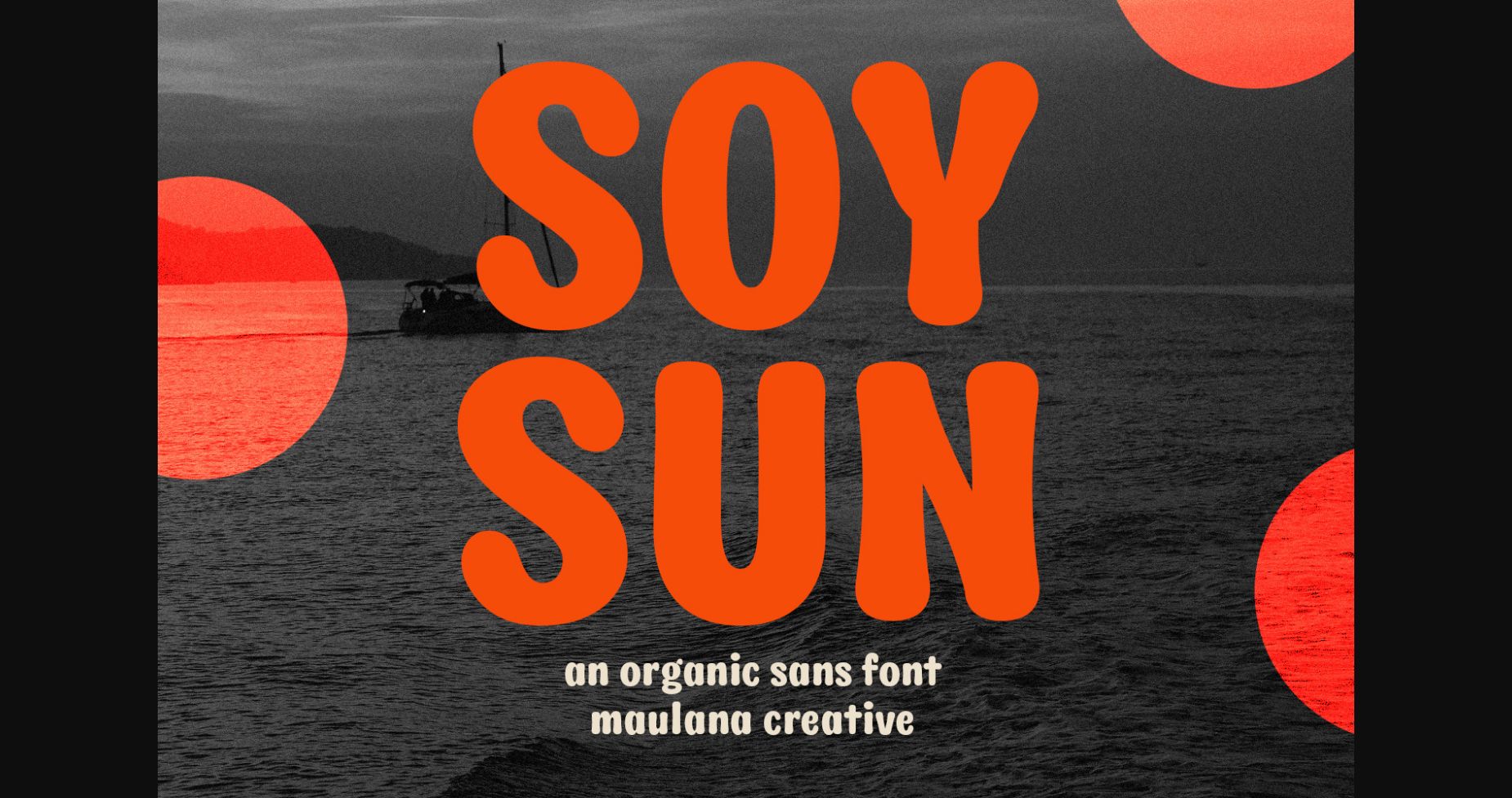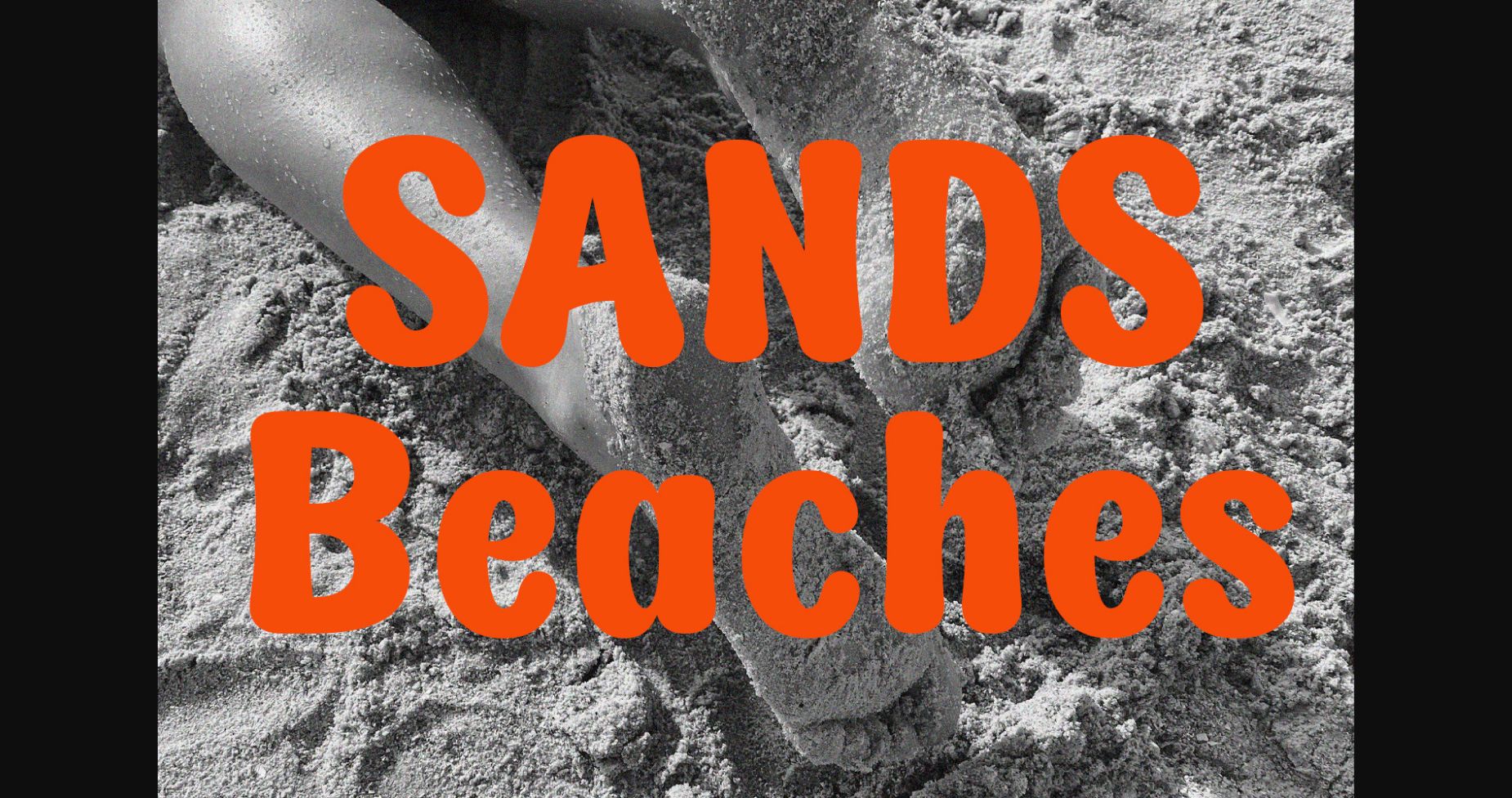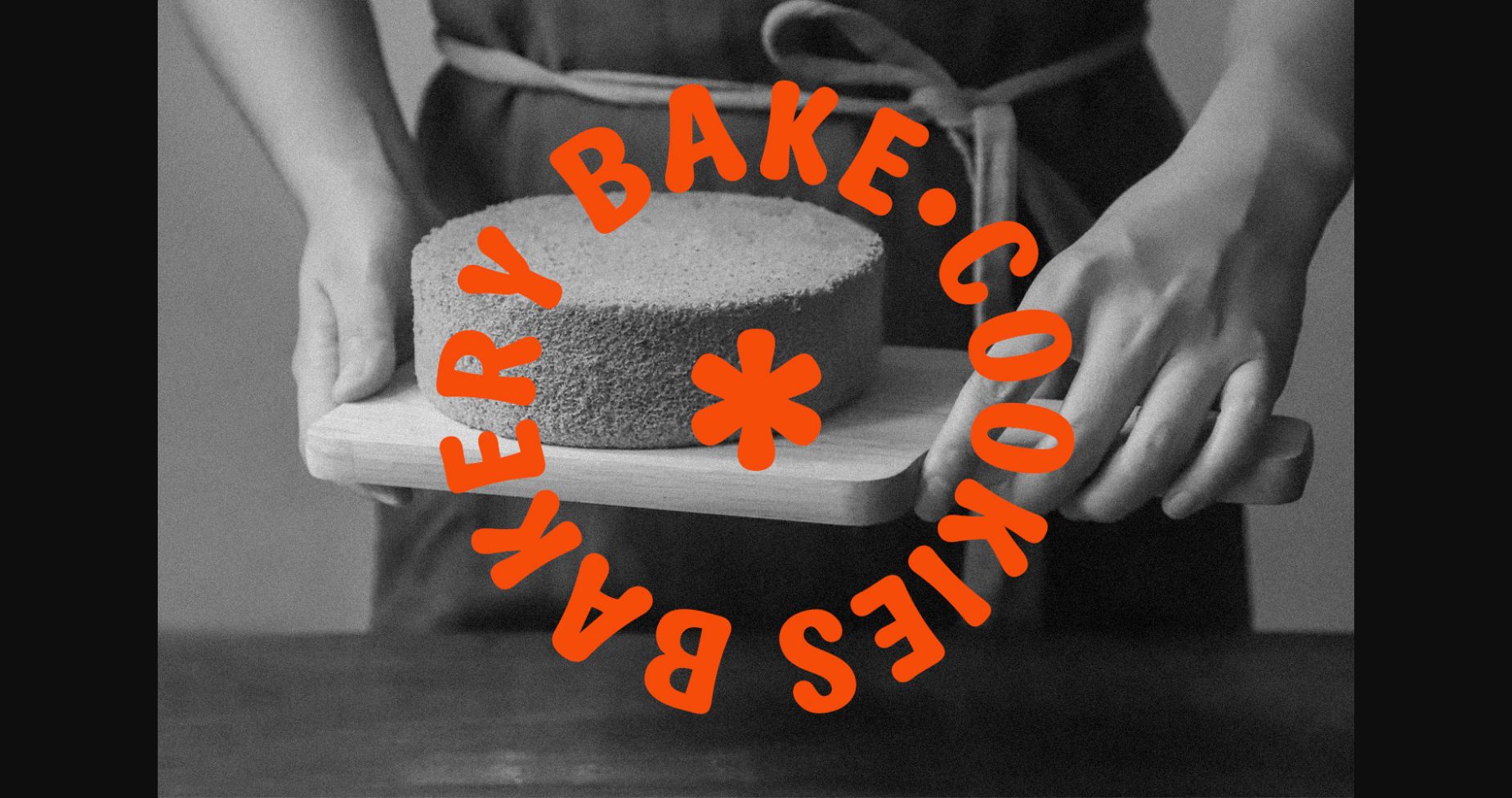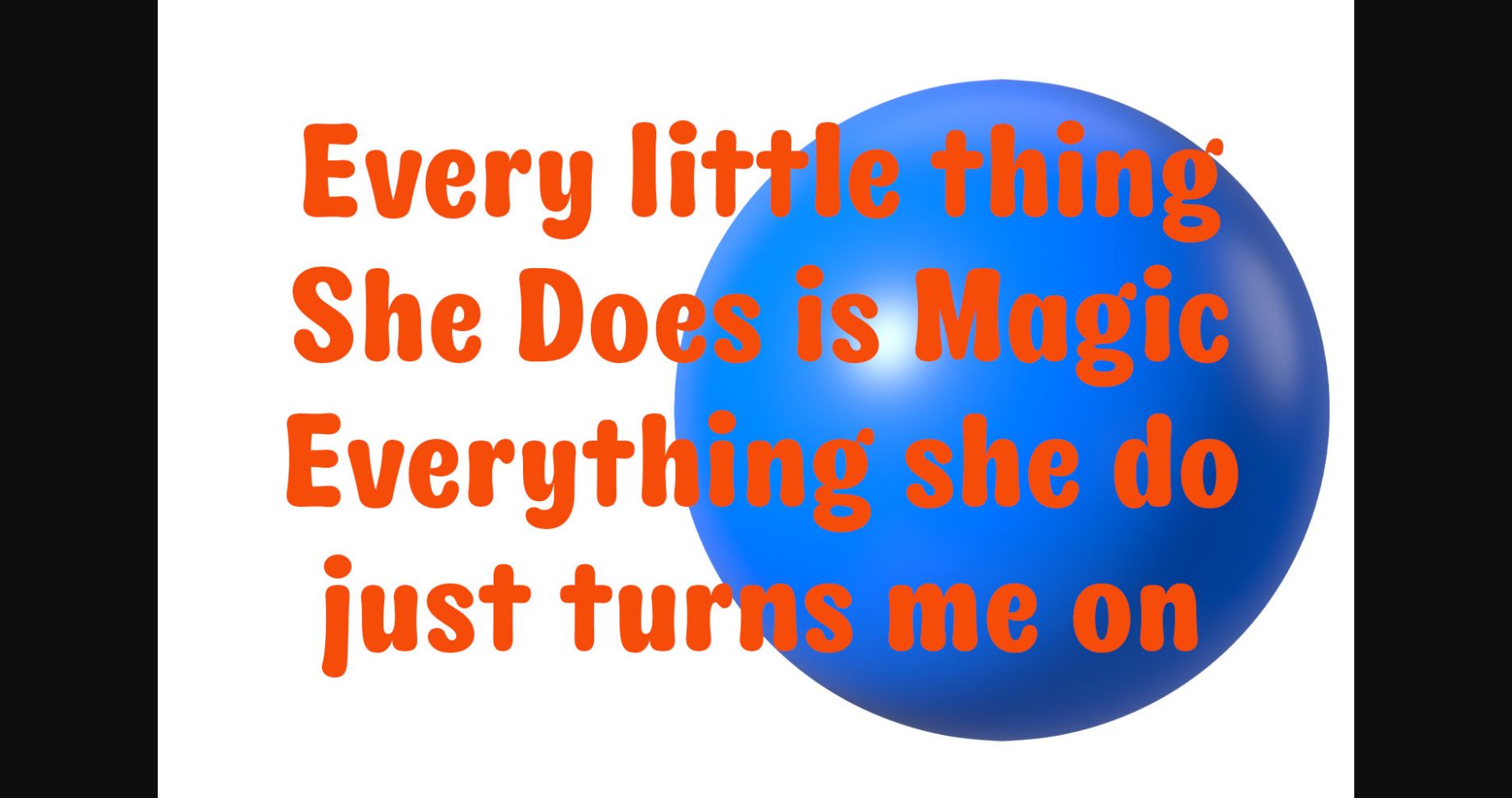
About Soysun Font
Soysun is a modern flare humanist sans display font. Medium stroke, fun character with a bit of ligatures and alternates. T This font is good for logo design, Social media, Movie Titles, Books Titles, a short text even a long text letter and good for your secondary text font with script or serif. Make a stunning work with Soysun font.